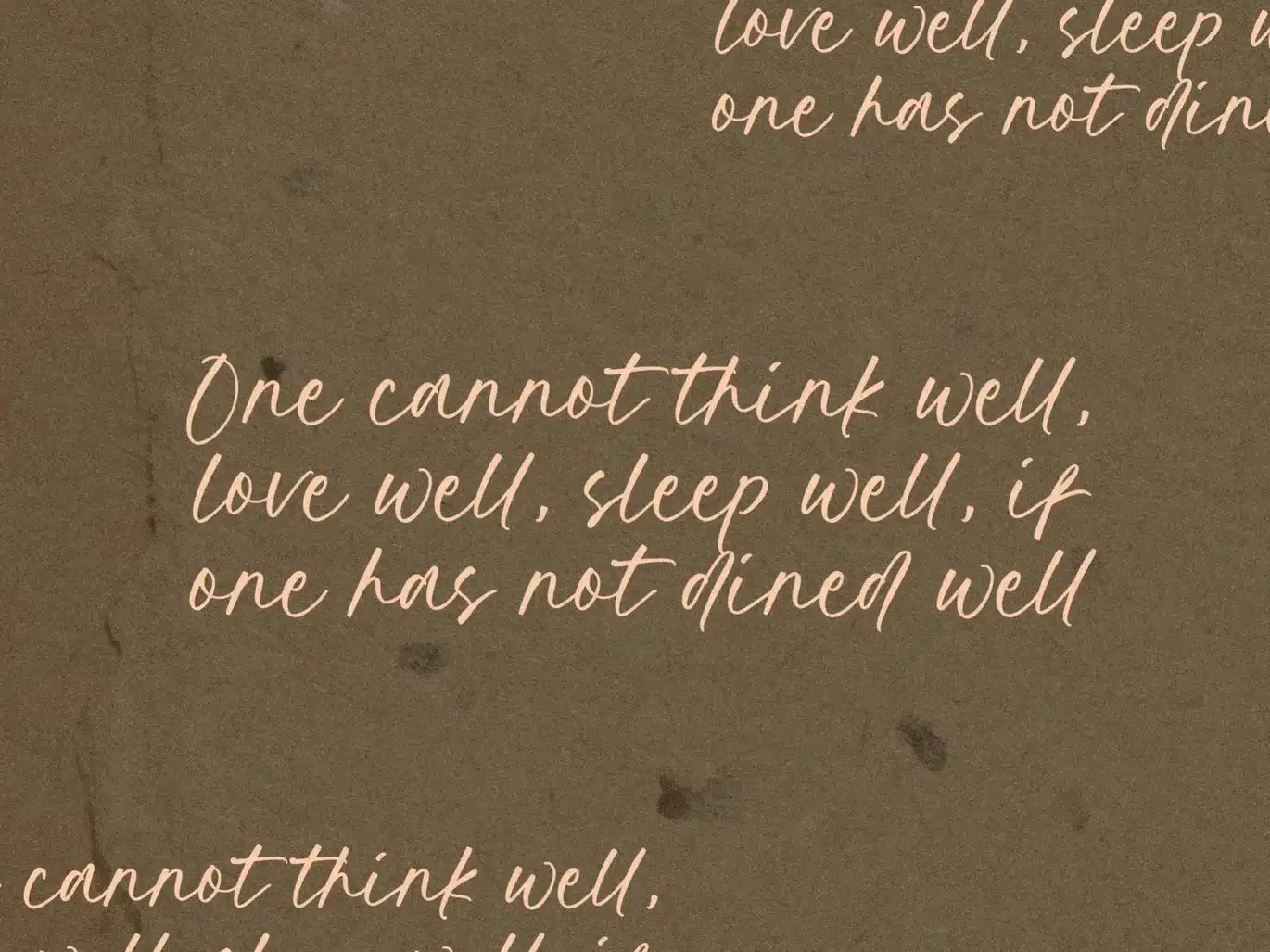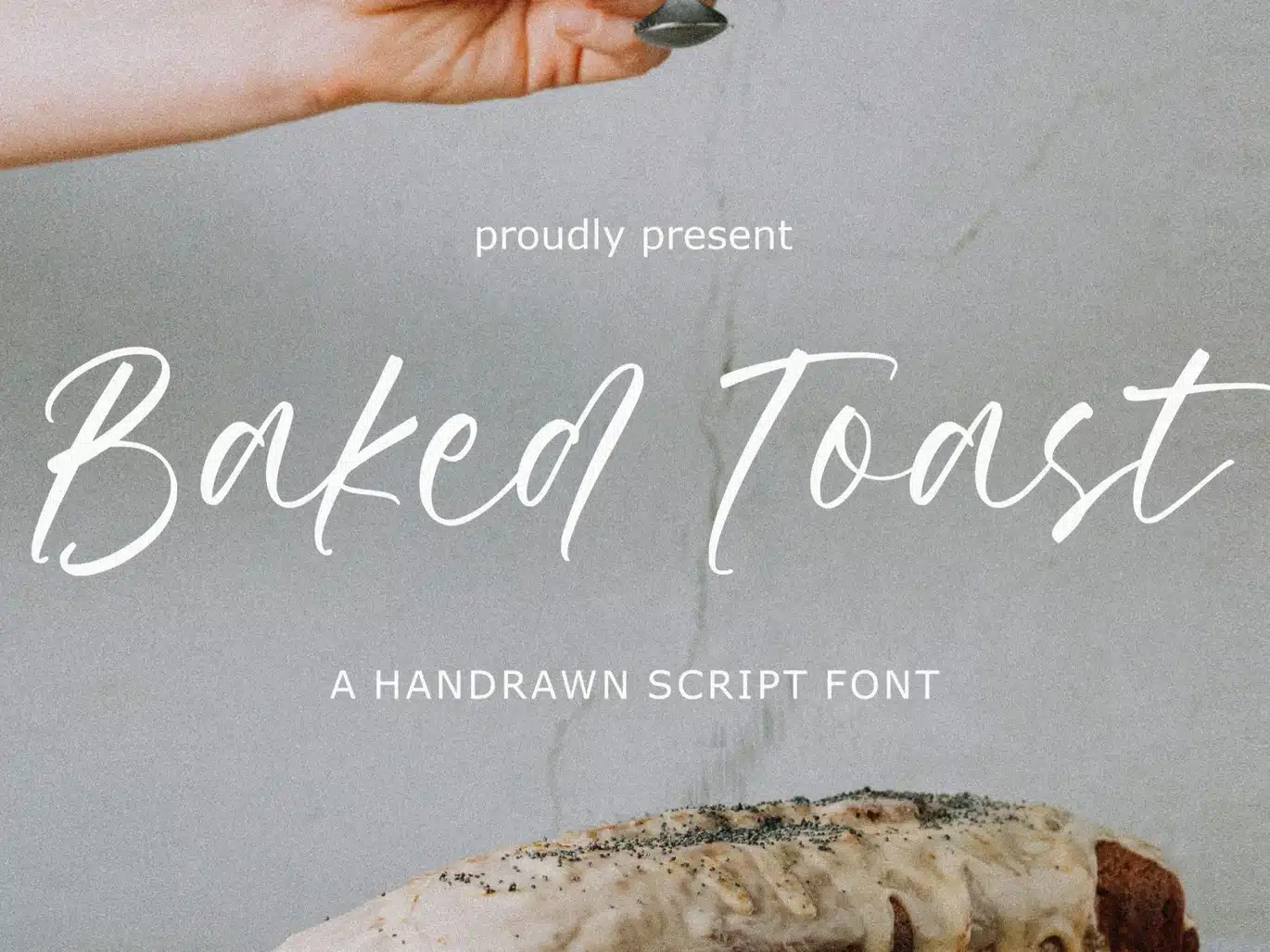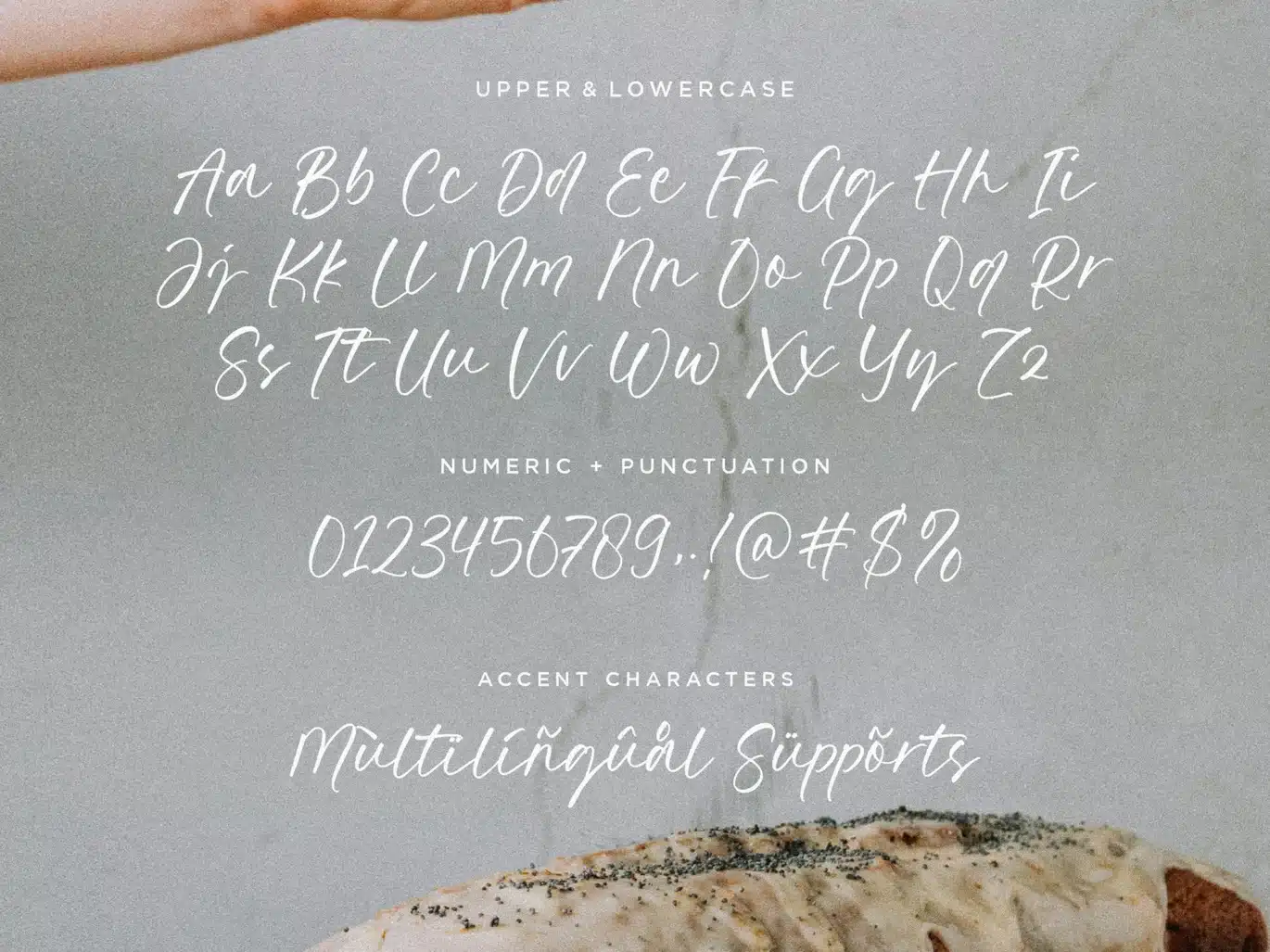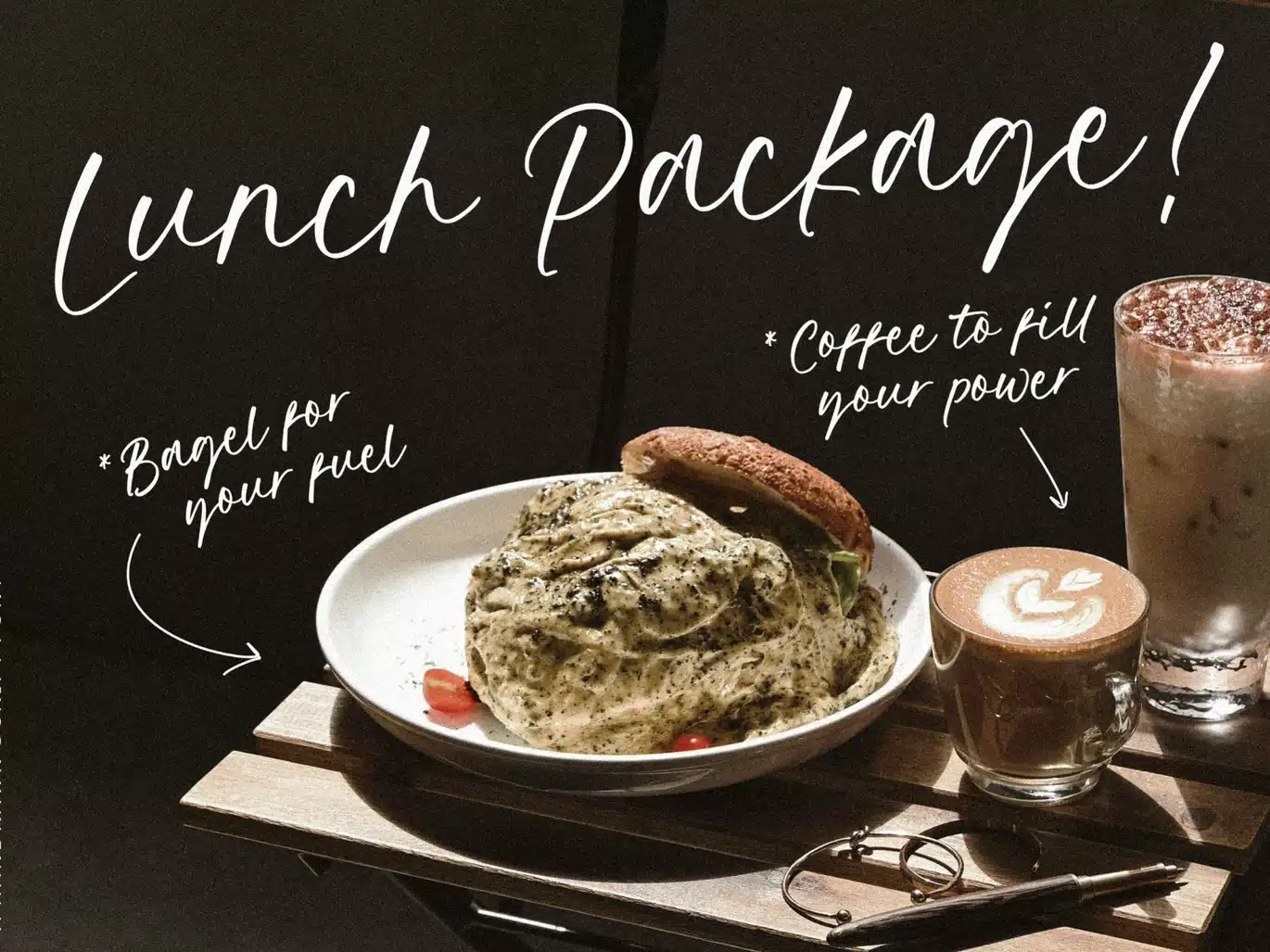
Baked Toast – Handdrawn Script Logo Font
Baked Toast is a Handdrawn Script Font that's perfect for adding a personal touch to your design projects! With its natural, organic feel and unique character.
Crafted with care and attention to detail, this font is incredibly versatile and can be used for a range of design projects, including logos, branding, invitations, and more. Its modern, handwritten style gives it a unique character that's sure to make an impact.